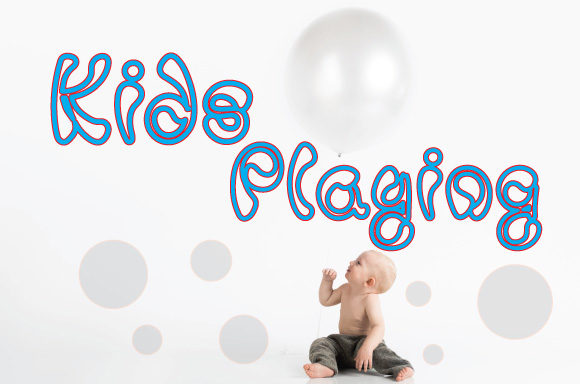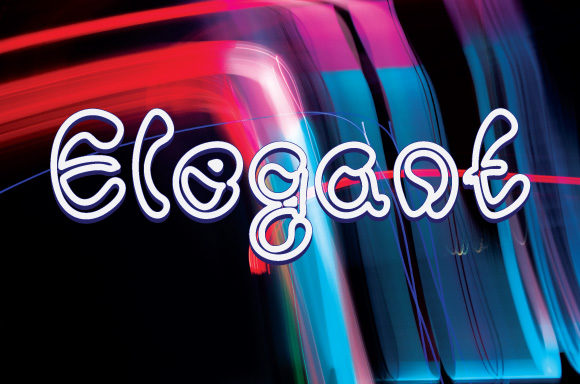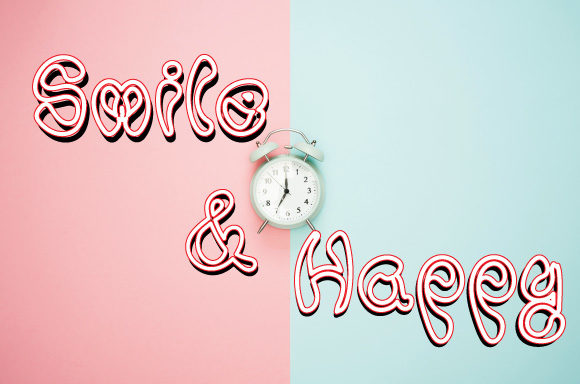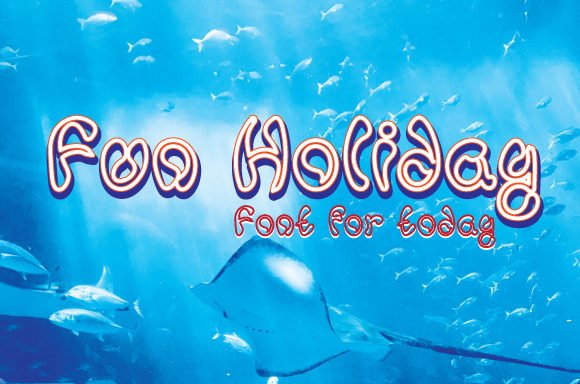
Introduction to Fun Holiday Font
Fun Holiday is a playful and bubbly display font.
This original look will appeal to a wide range of crafty ideas, from letterheads and titles, to stationery Use this font for your designs and explore its endless possibilities.
Why Choose Fun Holiday Font?